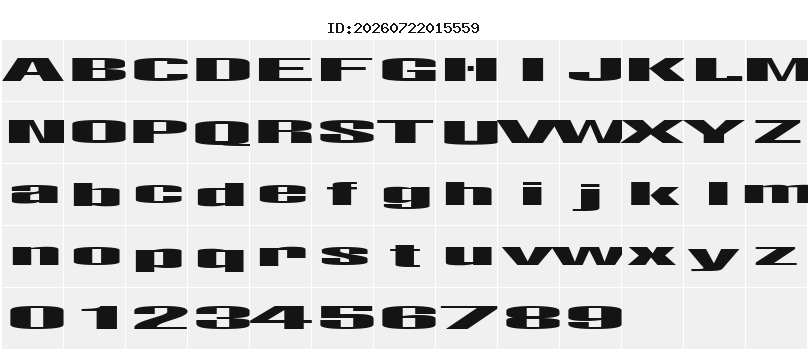
FZ BASIC 9 EX Preview
• Font Name: FZ BASIC 9 EX
About FZ BASIC 9 EX.ttf
FZ BASIC 9 EX.ttf is a modern, elegant sans-serif font designed for ultimate readability and visual harmony. Perfect for branding, headlines, web design, and print materials.